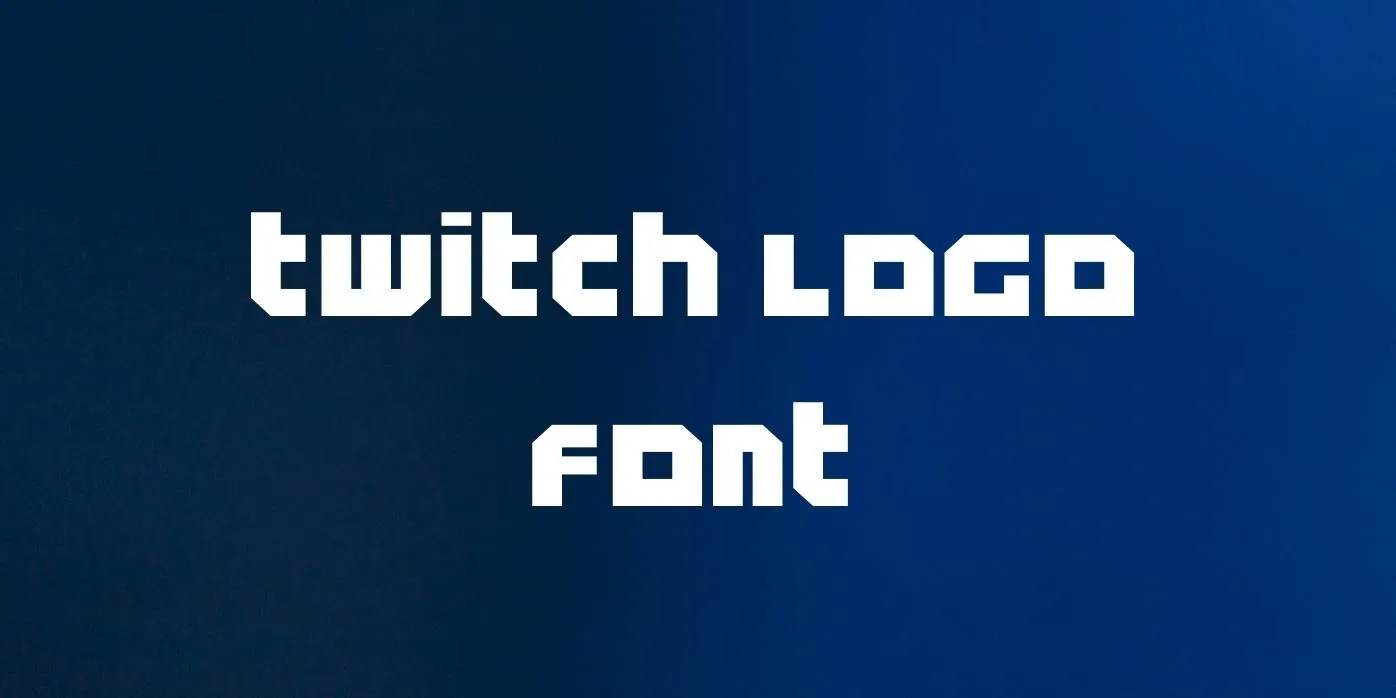
Twitch Logo Font
Here, we present a classy typeface known as Twitch Logo Font. This stylish typeface belongs to the display family and was developed by Byron Phillipson. The designer took the inspiration for this font from the popular video game Twitch. It is well suitable for CSS and HTML.
The Twitch Logo Typeface is a display typeface that features a clean and modern design. It comes in two variations: normal and italic. The normal version includes uppercase and lowercase letters, numbers, and some symbols. You can use it for various programs like Adobe and Canva.